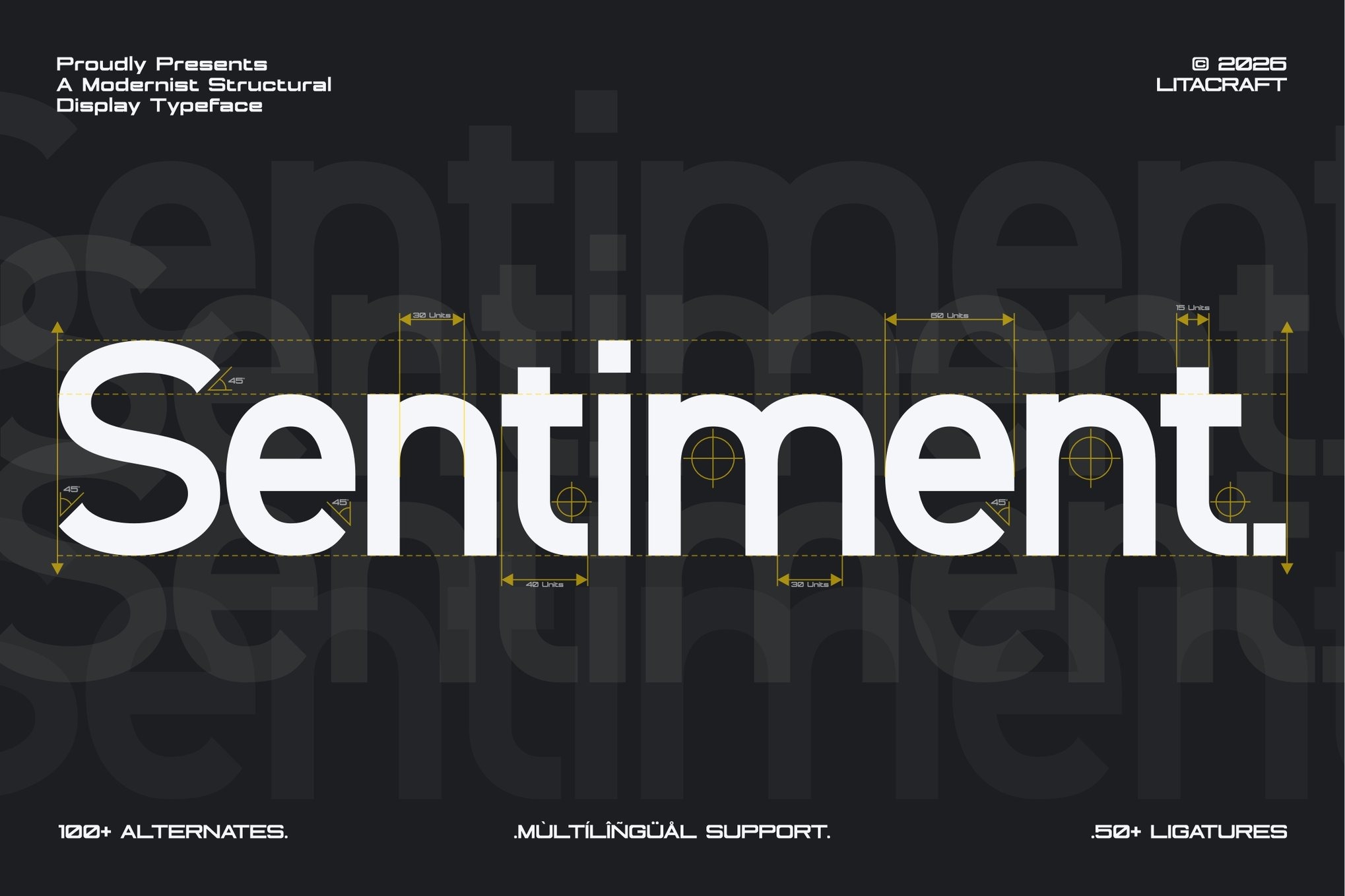
Sentiment – Geometric Sans Serif Font
SENTIMENT – Geometric Sans Serif Font is a versatile font designed to adapt beautifully across different design styles, offering dependable readability and balance. SENTIMENT is more than a typeface; it is a structural matrix designed for creators who value geometric purity and technical sophistication. SENTIMENT captures the essence of contemporary modernism, blending Neo-Grotesque legibility with radical, razor-sharp geometric cuts.
Whether you are designing for high-velocity automotive branding, cutting-edge software interfaces, or monumental architectural signage, SENTIMENT provides a permanent visual anchor. Its uncompromising modular grid ensures absolute structural readability, while a library of over 50+ smart ligatures and 100+ stylistic alternates allows you to manipulate negative space like an architect.